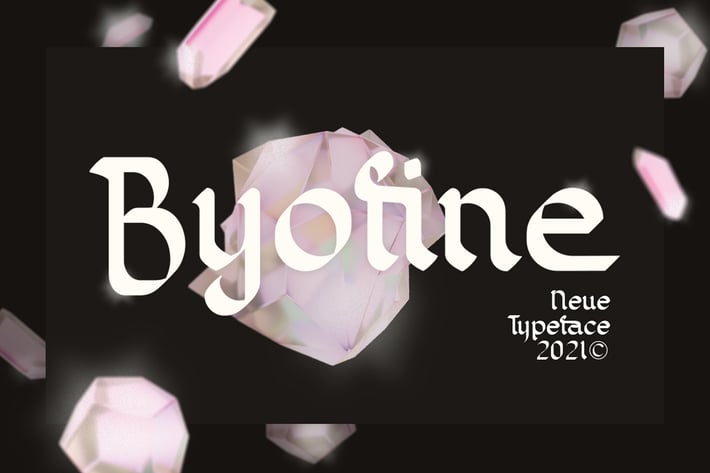
Byofine Display Typeface
Byofine
Experimental Neue style Display Black Letter typeface, inspired by Arabic Calligraphy and Brahmi Text. Fit for any Headline needs, especially Tattoo, Magazine, Creative Company, Rapper, Barber, Garage, Motorcycle, Band, also used for printed design, web font, branding, logo type, and Social media promotion.\
The shape reflecting a masculinity, wildness, also brave look for your designs.
Some Open Type features included, like alternates or stylistic Set, make your design looks authentic as one simply changes from basic character then switch it to activate the feature.